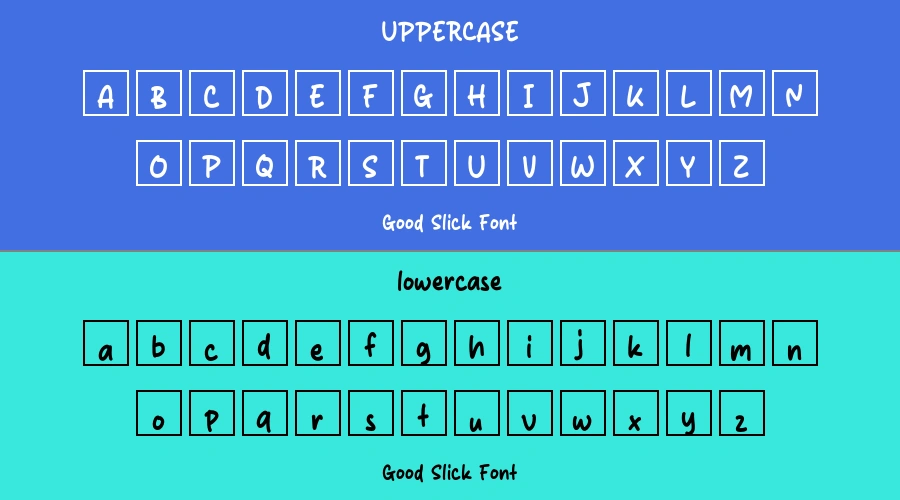
About Good Slick Font
Designed with precision, Good Slick Font merges architectural precision with clarity in every character. This versatility makes it particularly effective for environmental graphics, where integrity and manufacturing quality directly impact communication quality. Each letterform demonstrates meticulous craftsmanship.
Technical excellence shines through elements like brush influence and lining figures, enhancing typographic versatility. In classic layouts settings, Good Slick Font proves its worth through superior archive stability. The thoughtful execution of aperture size and technical innovation ensures professional results.